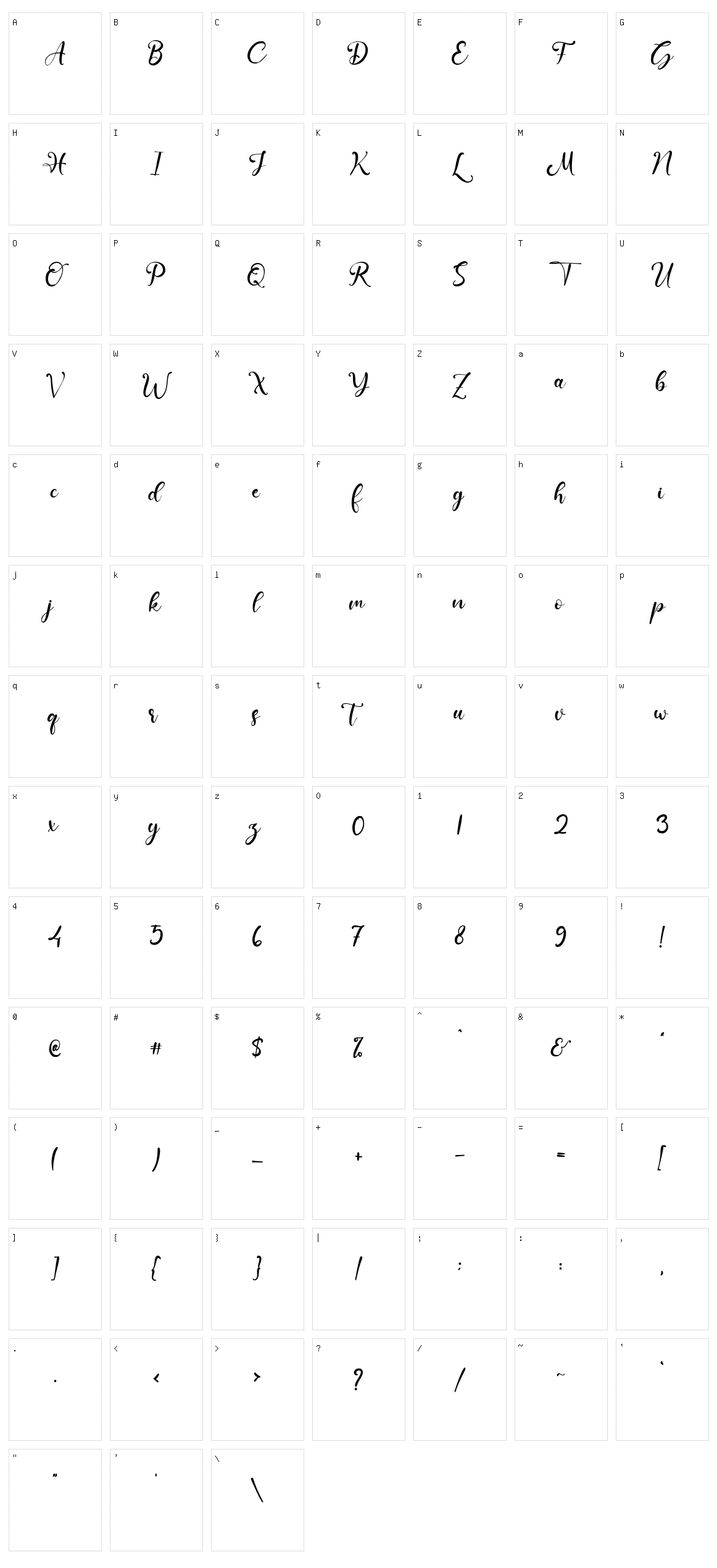
The free font Majesty Square is carefully designed by Kong Font, showcasing a thoughtful balance of creativity and usability and falls under the Script font style. When you download the ZIP file, it contains only 107.08 KB of font files, making it lightweight and quick to download. Please review the license details below to understand permitted usage and distribution rights. If license information is not available, we recommend using this font for personal projects only or contacting the author directly for commercial usage permissions.